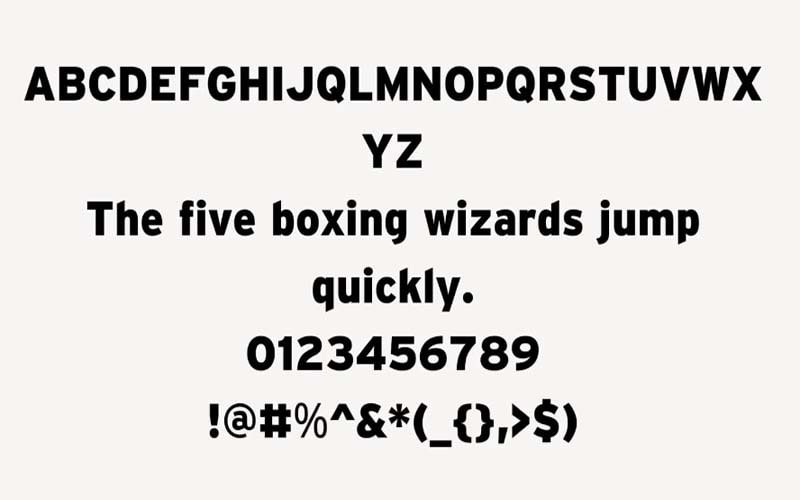
Logo Sans Serif Typeface
Sesame Street Font is a great logo, Sans Serif typeface. It looks delicate and more glorious because of its name which has classic, elegant, bold, and clean letters.
Two designers took charge of designing this beautiful and elegant font named Tobias Frere-Jones and Lloyd Morrisett. They worked from 1993 to 1999 through the Font Bureau.
Sesame Street is an American educational children’s television series which broadcast on Television on 10 November 1969 that combines live action, animation, and comedy.
This stunning typeface is relevant to the Interstate font family which comes in numbers, linings, and 2 styles such as “Sesame Street Black” and “Sesame Street Bold” font style.
Sesame Street Font
This high-quality typeface has 246 glyphs counted in number and 1000 units per EM with horizontal and no kerning that helps to make your designs look more professional.
This typeface has a character set that includes all lowercase, and uppercase letters, all caps, and some special characters. It also supports different multiple international languages.